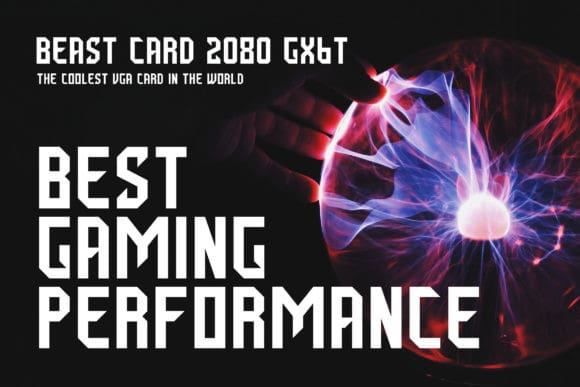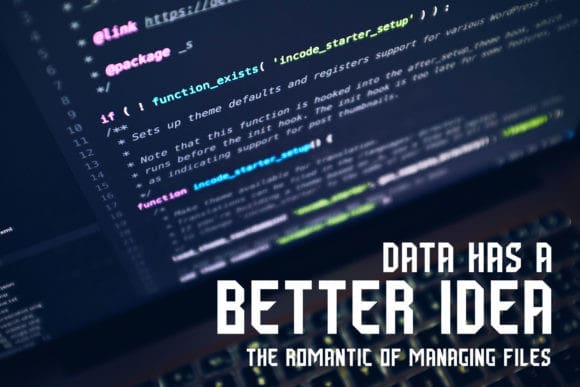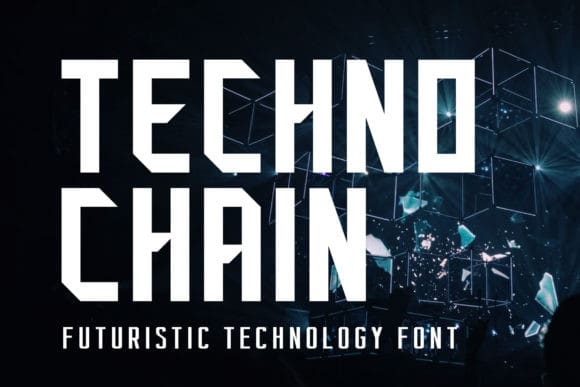
Techno Chain Font
Techno Chain Font is a cool, bold and futuristic display font. It will look stunning on any poster flyer or print. Use this font for your designs and explore its endless possibilities.